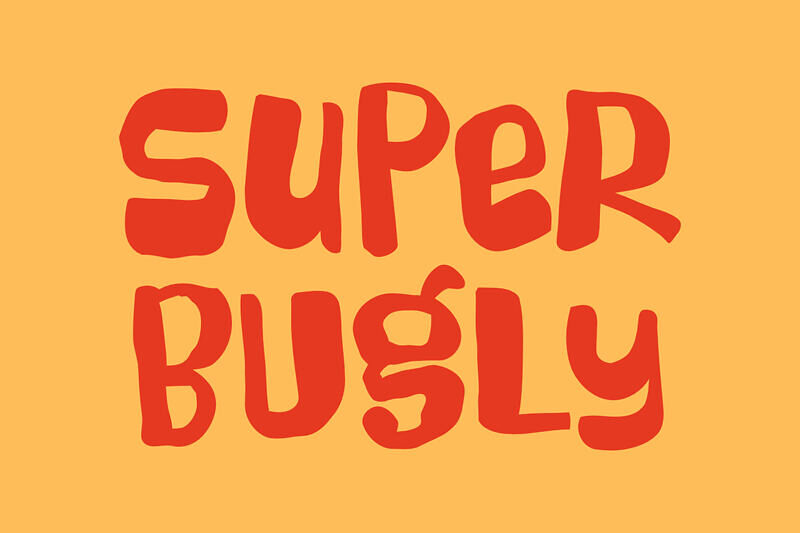
Super Bugly is a bold, quirky display font with exaggerated, uneven letterforms that embrace a deliberately “ugly” aesthetic.
Its chunky shapes, playful distortion, and irregular curves create a chaotic yet eye-catching personality, perfect for humorous or experimental designs. Ideal for posters, titles, and creative branding, it prioritizes visual impact over readability.